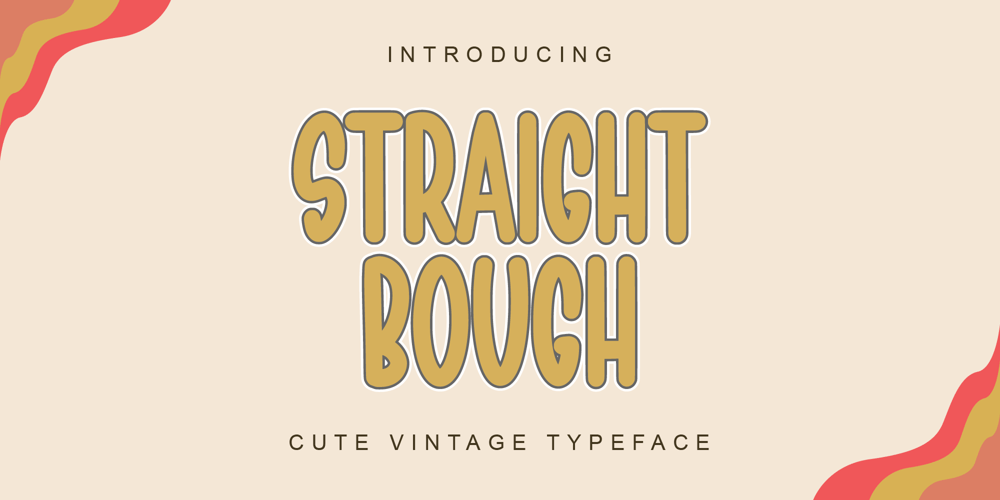
Straight Bough
Straight Bough font
Straight Bough Font Family was designed by Muhammad Yafinuha and published by Letterayu Studio. Straight Bough contains 1 styles and family package options. Straight Bough is a Cute Sans Serif font that will make your designs look unique and fun. It’s perfect for labels, quotes, posters, DIY projects, branding, packaging, greeting cards, websites, photography overlays, signs, window art, scrapbooking, tags and so much more!What’s Included : Standard glyphs Web Font Multilingual Accent Works on PC & Mac Simple installations Accessible in the Adobe Illustrator, Adobe Photoshop, Adobe InDesign, even work on Microsoft Word. PUA Encoded Characters – Fully accessible without additional design software. Fonts include multilingual supportImage used : All photographs/pictures/vector used in the preview are not included, they are intended for illustration purpose only.Thank You